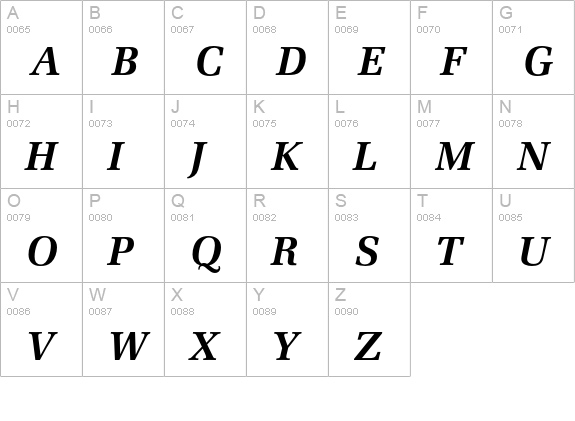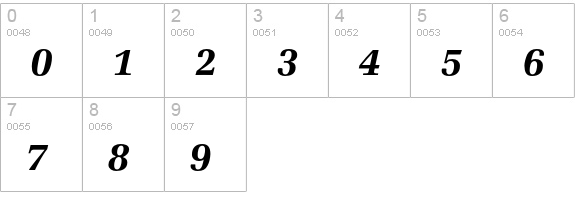
Melior Bold Italic Font Details
Melior Bold Italic is a strong, high-contrast, italic variant in the Melior typeface family \xE2\x80\x94 well suited to headlines, attention-grabbing titles, and strong calls-to-action.
Melior Bold Italic is a stunning and versatile font that exudes elegance and sophistication. Its bold and italic design adds a touch of flair and personality to any project, making it perfect for headings, titles, and other attention-grabbing text. The thick strokes and slanted angles create a sense of movement and dynamism, drawing the eye and commanding attention. With its timeless appeal and modern twist, Melior Bold Italic is a must-have for designers and creatives looking to make a bold statement. Whether you're working on branding, advertising, or editorial design, this font will elevate your work to the next level. And the best part? Melior Bold Italic is available for free download at FontsMarket.com. So why wait? Give your projects a touch of sophistication and style with this exquisite font today!